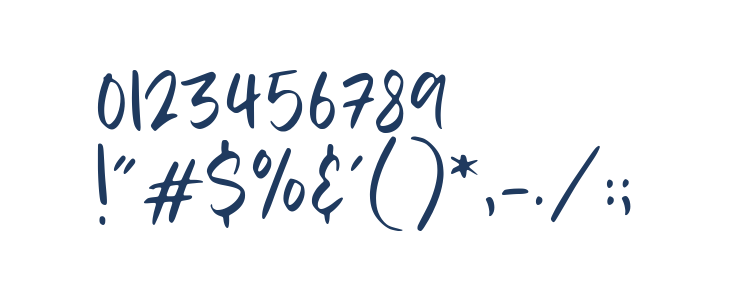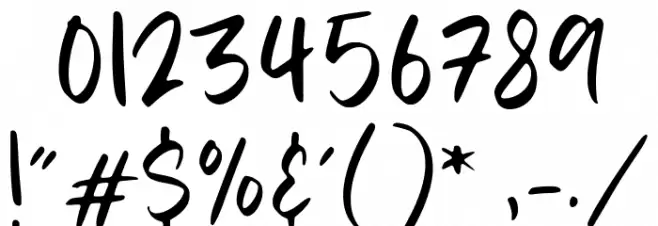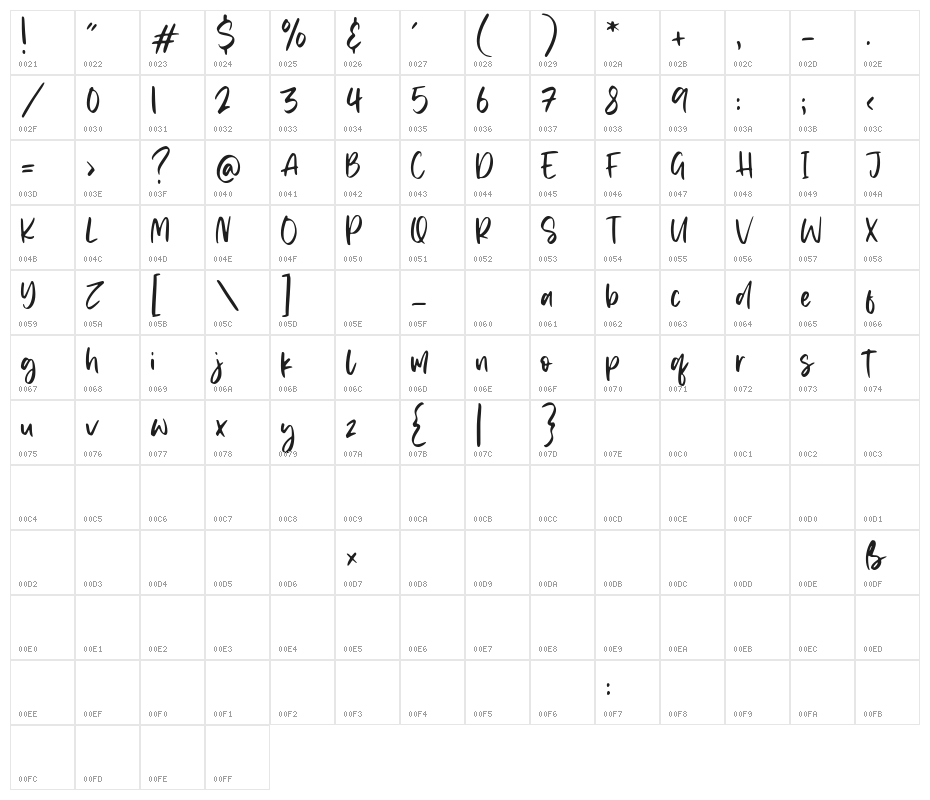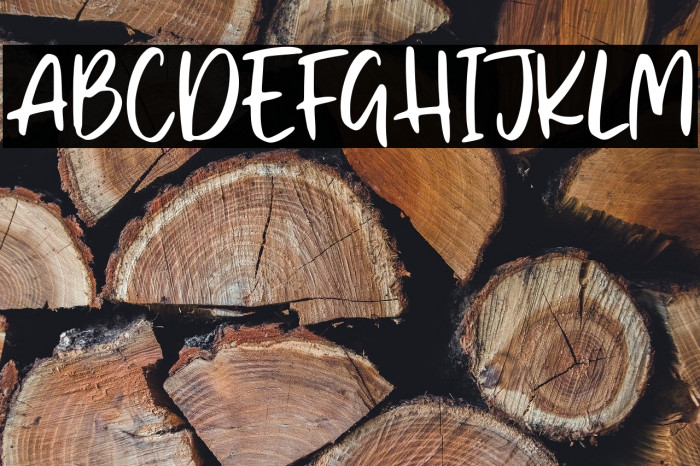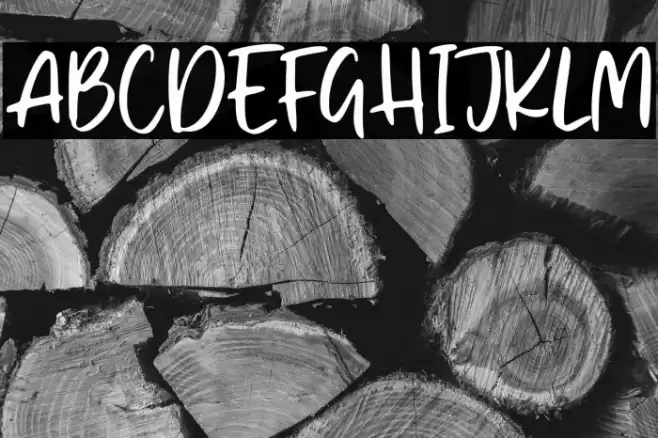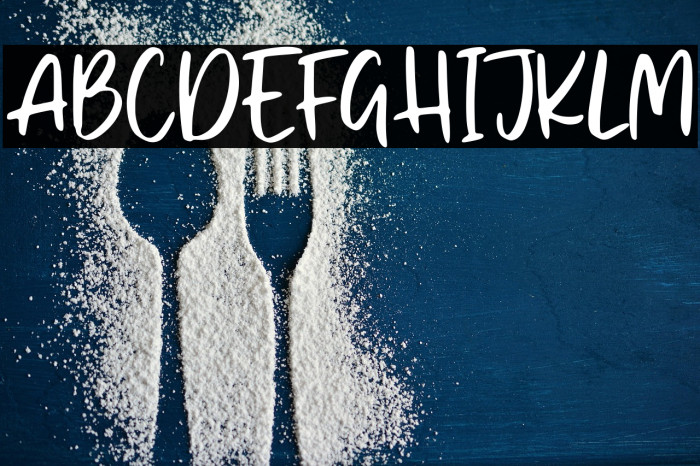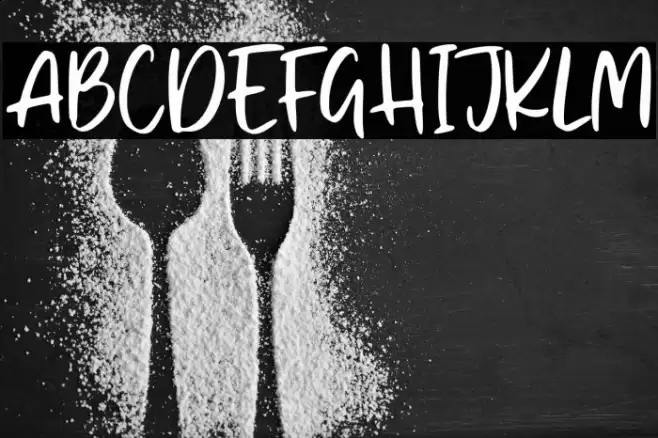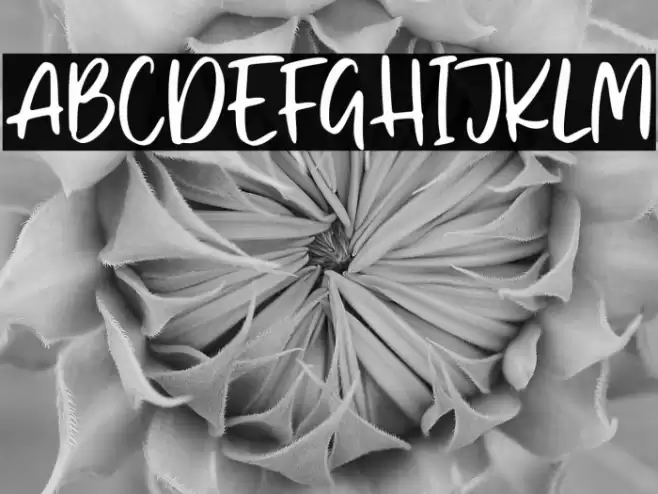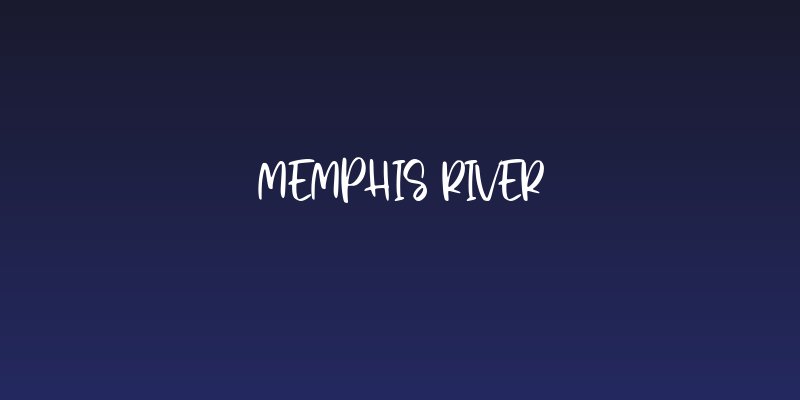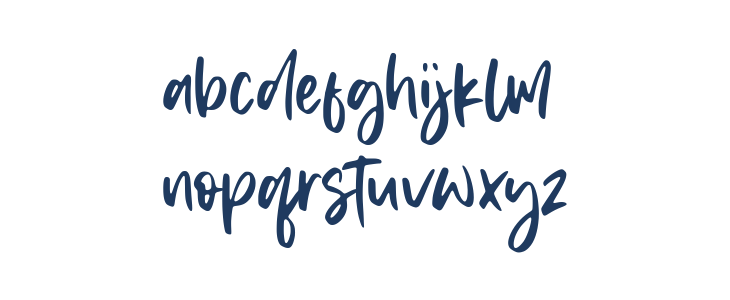
Memphis River Font
Memphis River Description
This font exudes a playful and energetic vibe, characterized by its handwritten style that mimics natural penmanship. The letters are bold and slightly irregular, giving it a casual and approachable feel. The uppercase and lowercase letters maintain a consistent flow, with rounded edges and a slight slant that adds to its dynamic appearance. The numerals and special characters follow the same style, ensuring uniformity across all glyphs. This font is perfect for projects that require a personal touch, such as greeting cards, invitations, or social media graphics. Its unique style makes it stand out, making it ideal for creative and informal designs.